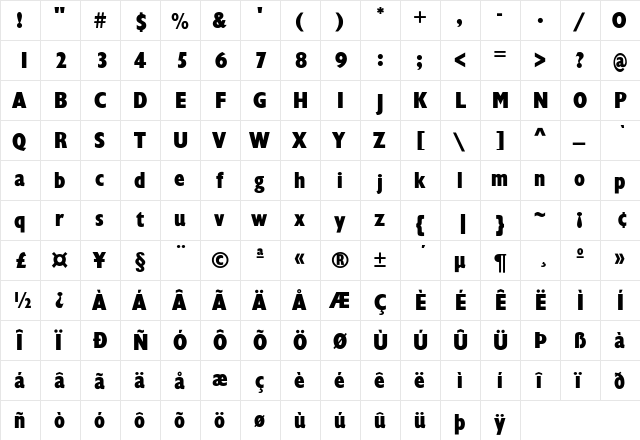
GarrisonSans-ExtraBoldCond Regular
Design Context for GarrisonSans-ExtraBoldCond Typeface
GarrisonSans-ExtraBoldCond is a composed and adaptable typeface that performs quietly and consistently across a wide range of design contexts. The heavy weight commands attention and anchors typographic hierarchies. The condensed width makes it efficient for tight spaces without sacrificing legibility.